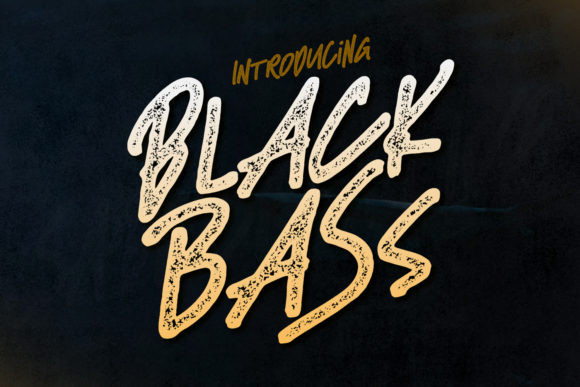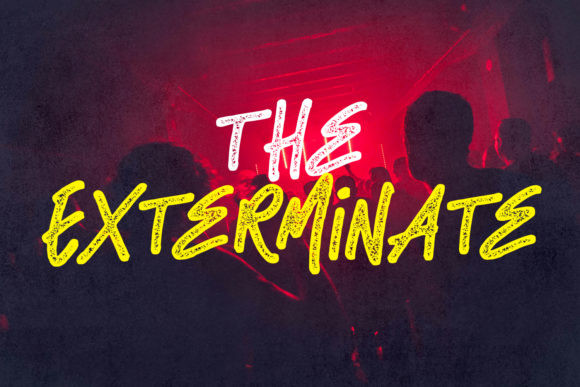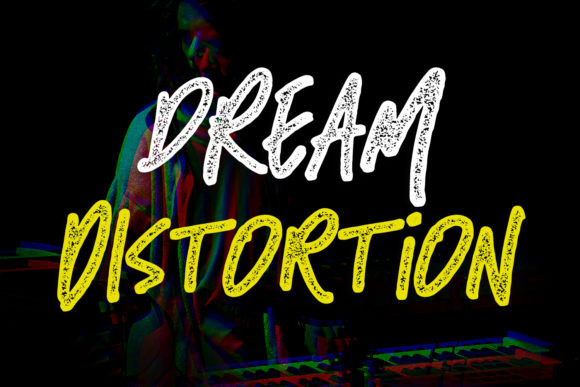
Black Bass Font
Black Bass is an equally strong and natural display font with an authentic twist. Use it to take any design project to the next level.